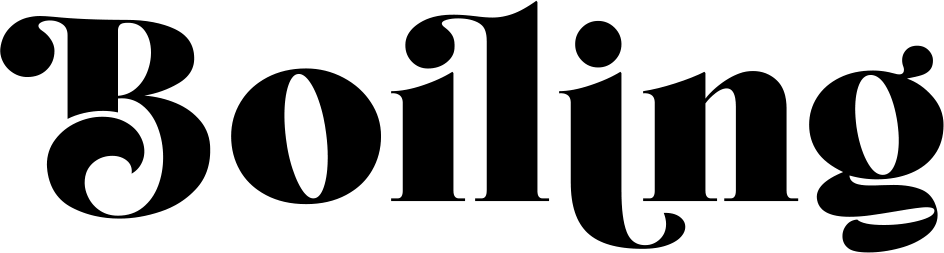
Boiling Font
Do you need a flawless font for your typography designs? So you should try Boiling right now. This ligature font with semi-curly characters is perfect for various situations. You can use it for adventuresome aspects, headlines, books, and whatnot. Time is precious, don’t waste it and get this bold fashion font as soon as possible.